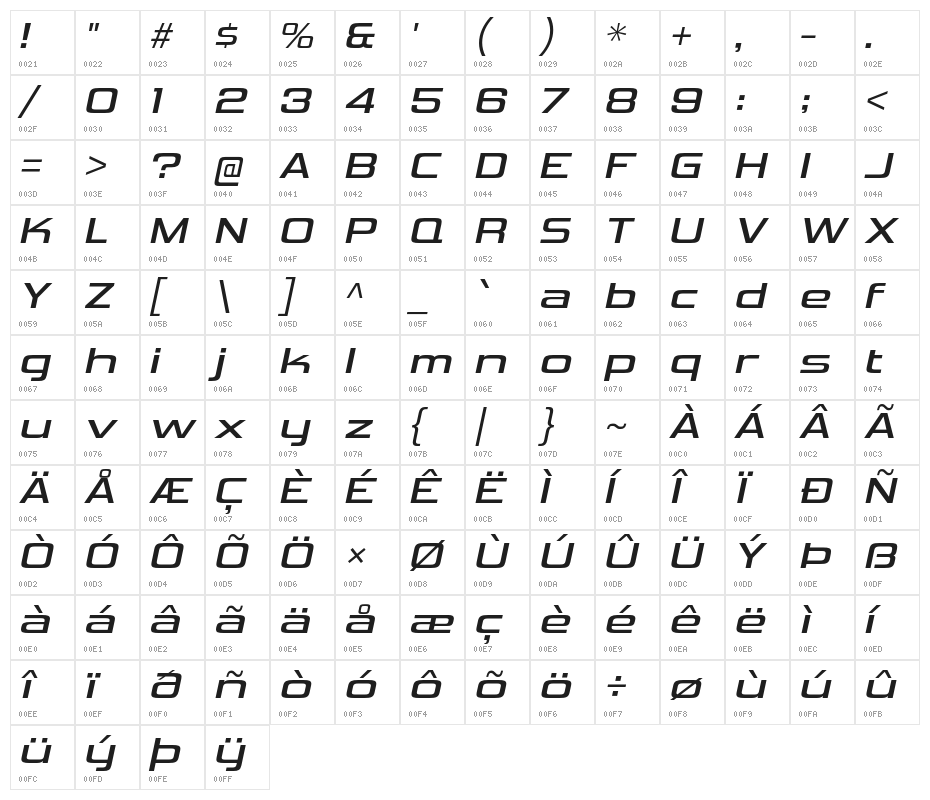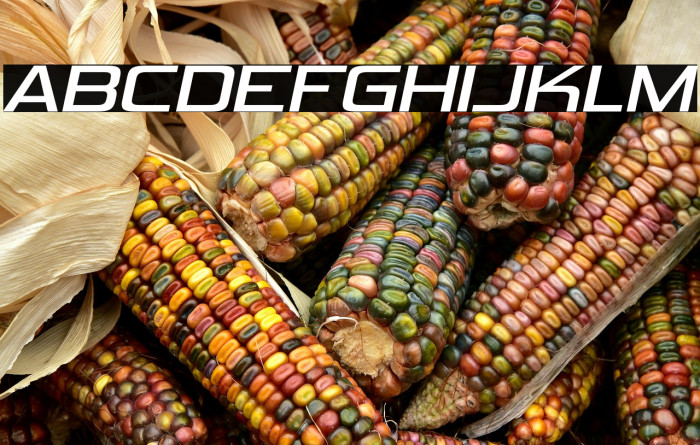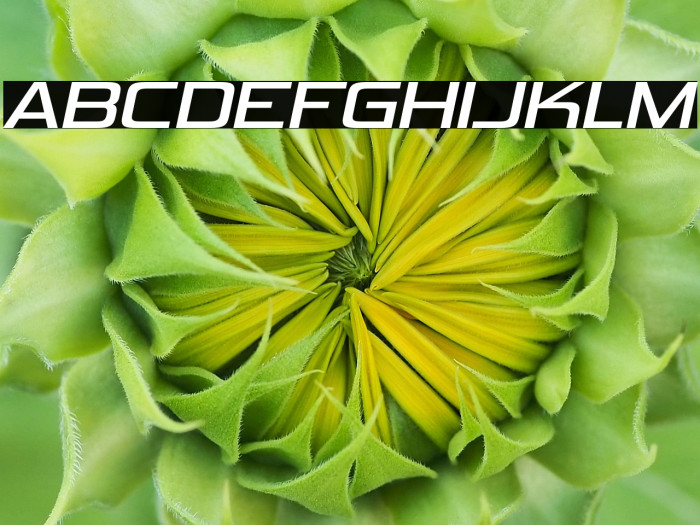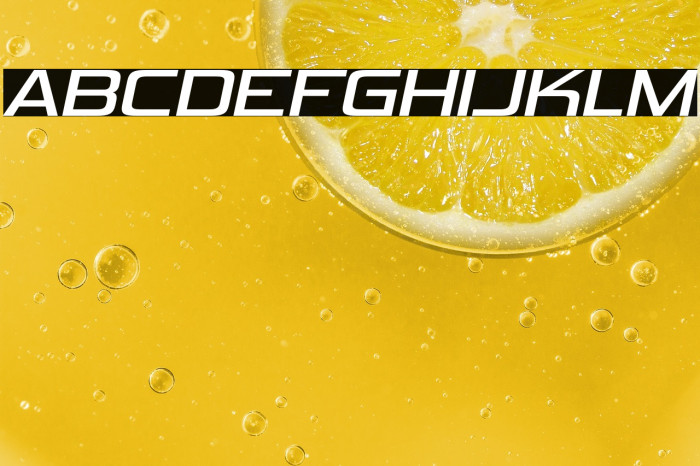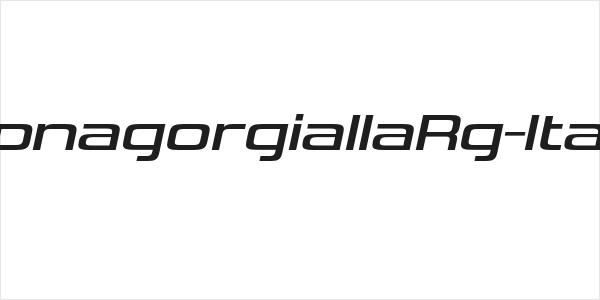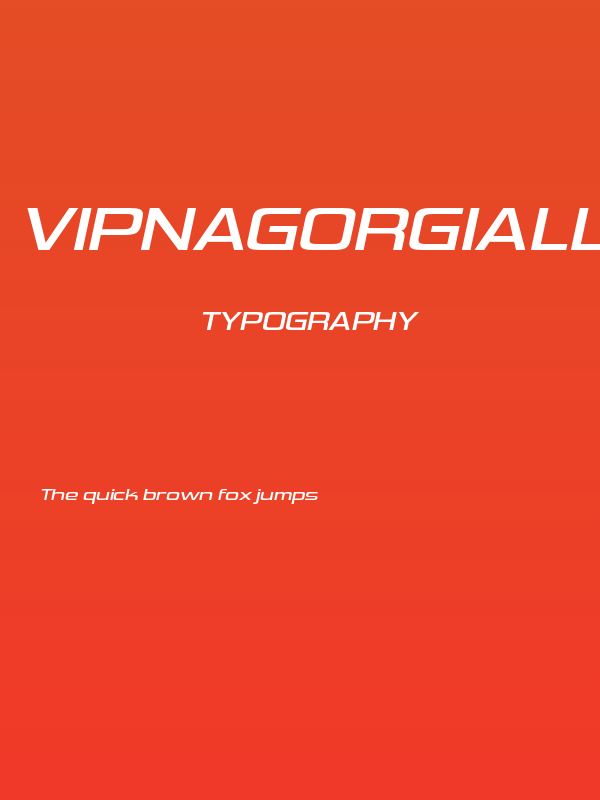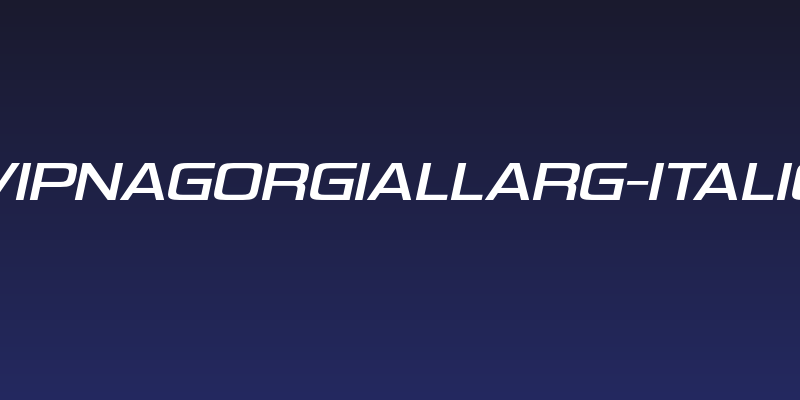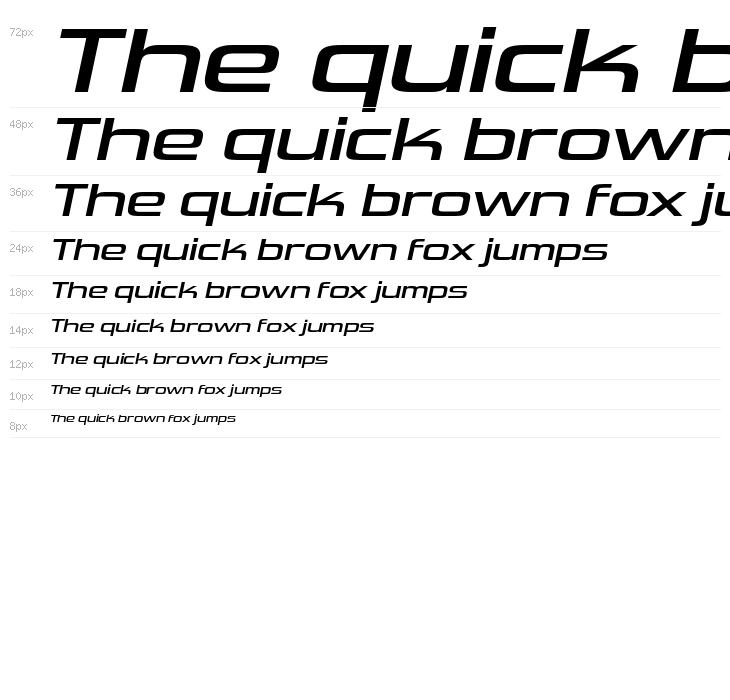
VipnagorgiallaRg-Italic Font
VipnagorgiallaRg-Italic Description
This font exhibits a sleek and modern aesthetic with a distinct italic slant, giving it a dynamic and forward-moving appearance. The characters are uniformly styled with smooth curves and sharp edges, creating a sense of speed and agility. The uppercase and lowercase letters maintain a consistent style, with the lowercase letters slightly more rounded. Numbers are clear and legible, matching the overall style of the alphabet. Special characters are well-integrated, maintaining the font's cohesive look. The font's design is ideal for projects that require a contemporary and energetic feel.
| Proposed Projects | Ideal for branding, sports-related designs, automotive industry materials, and modern advertising campaigns. |